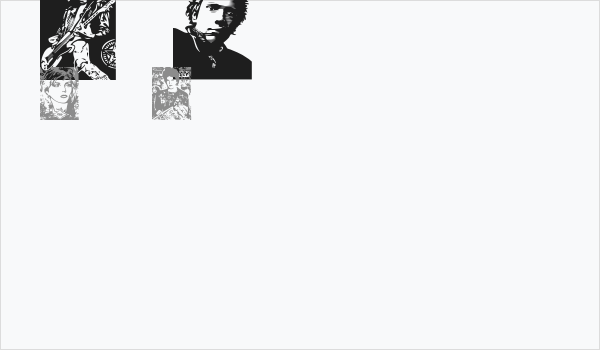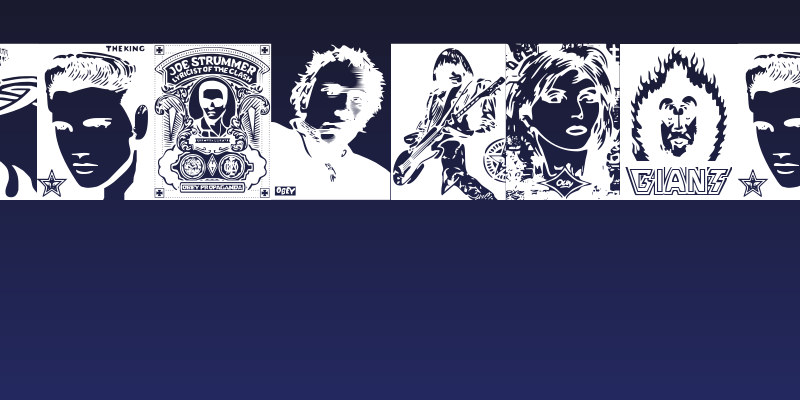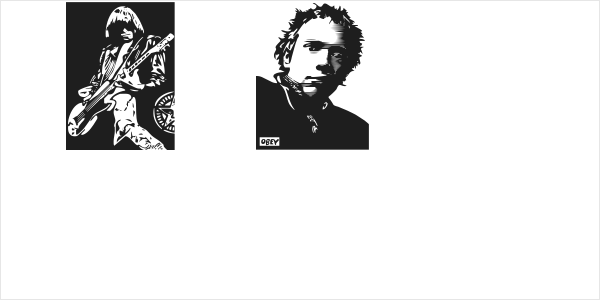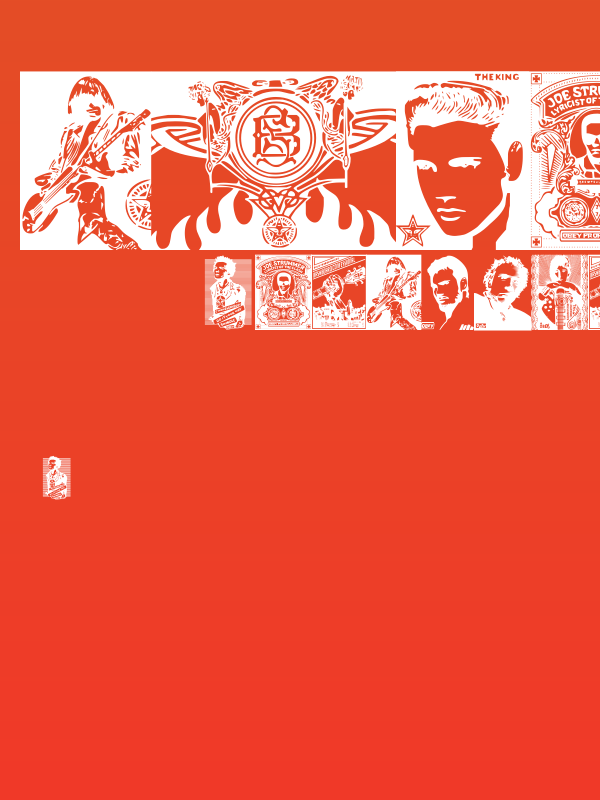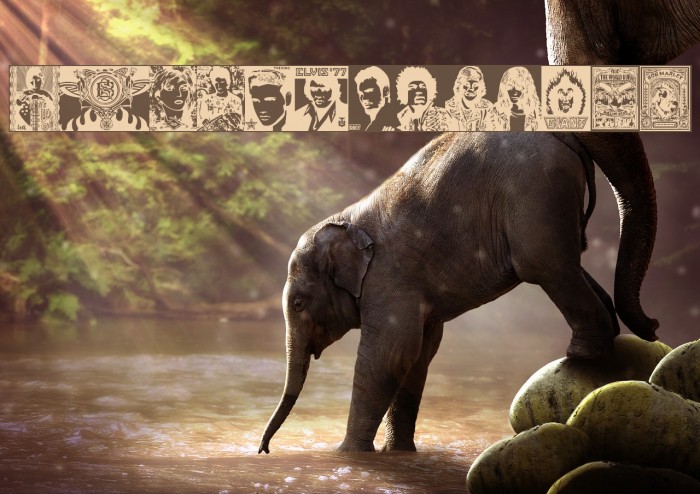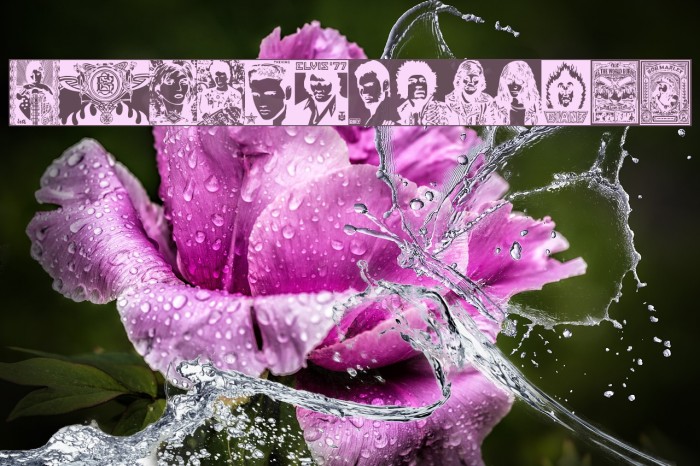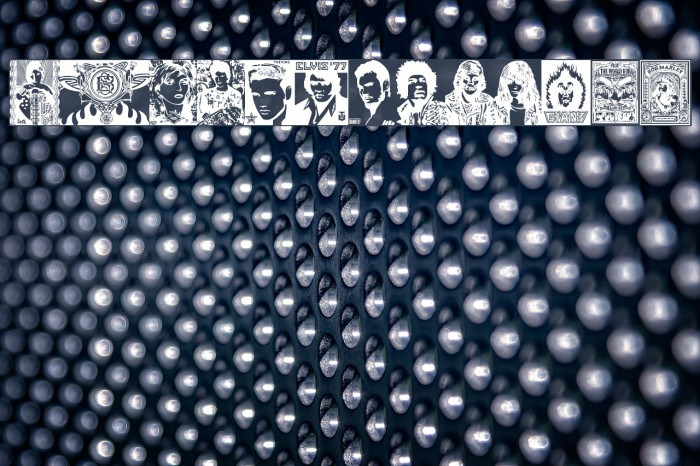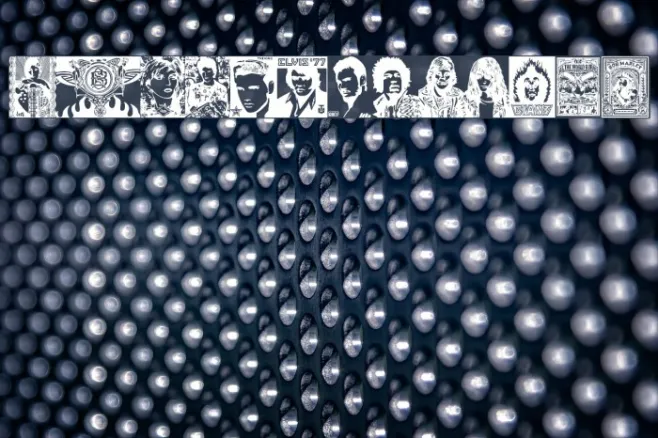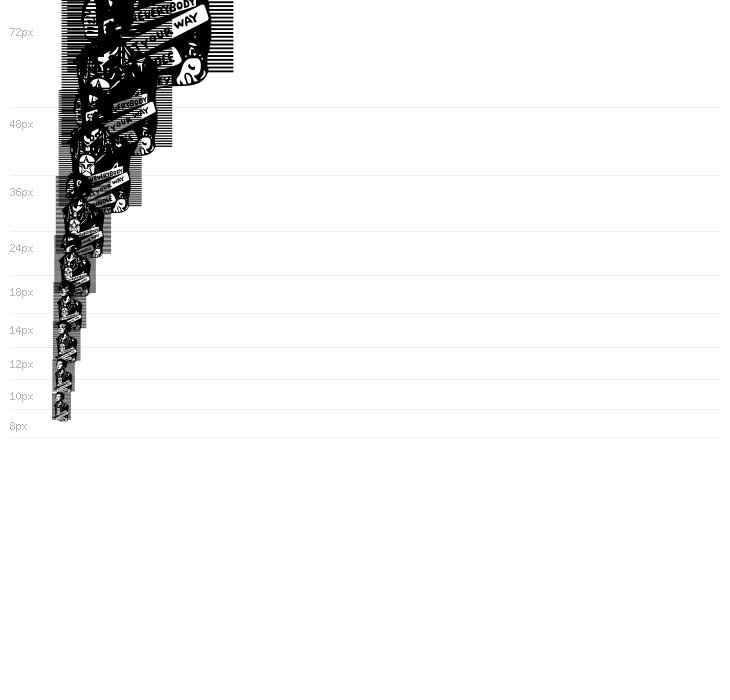
ObeyRockers Font
A highly decorative and illustrative font where each character is represented by a detailed black-and-white graphic, often featuring portraits of famous musicians or rock-themed artwork. The style is bold, high-contrast, and visually complex, resembling poster art or album covers.
| Overall Style | Decorative, Rock, Vintage Poster Art |
| Use Case | Logos, Headlines, Posters, Themed Graphics |
| Proposed Projects | Music posters, album covers, event flyers, themed merchandise, editorial spreads. |